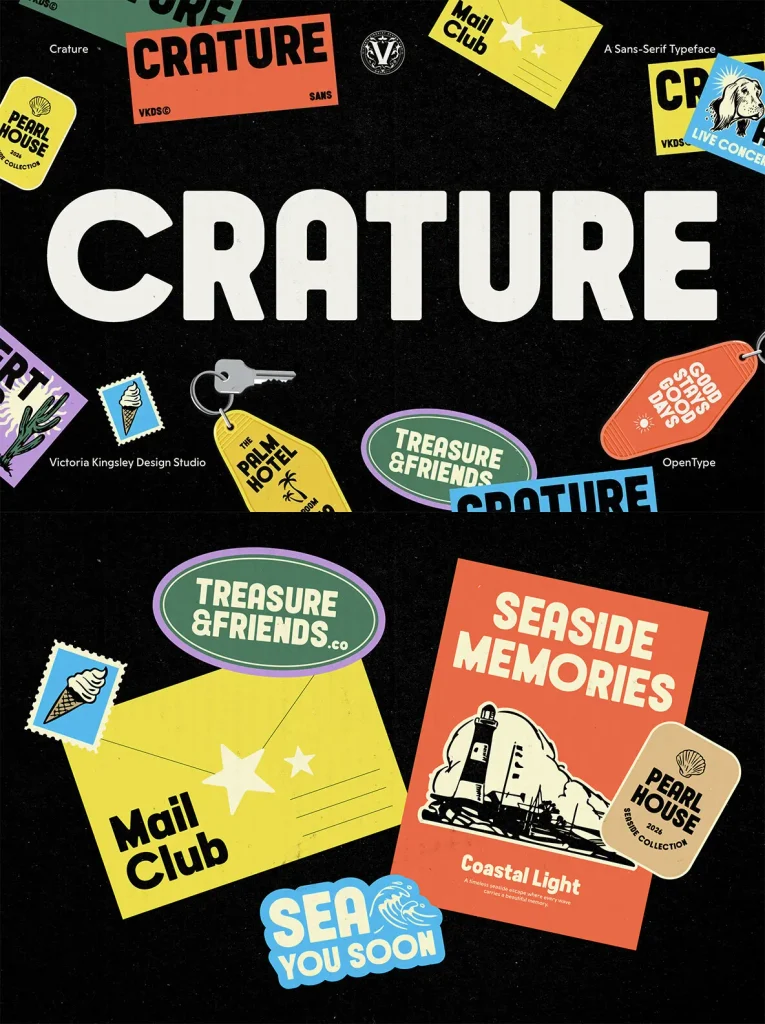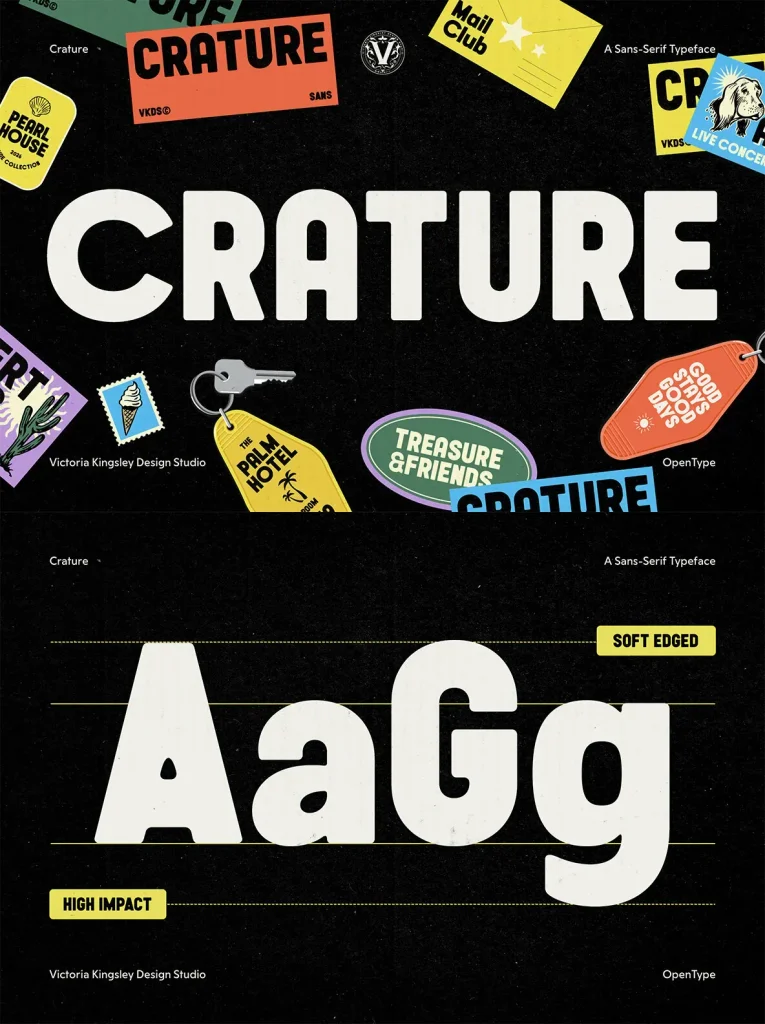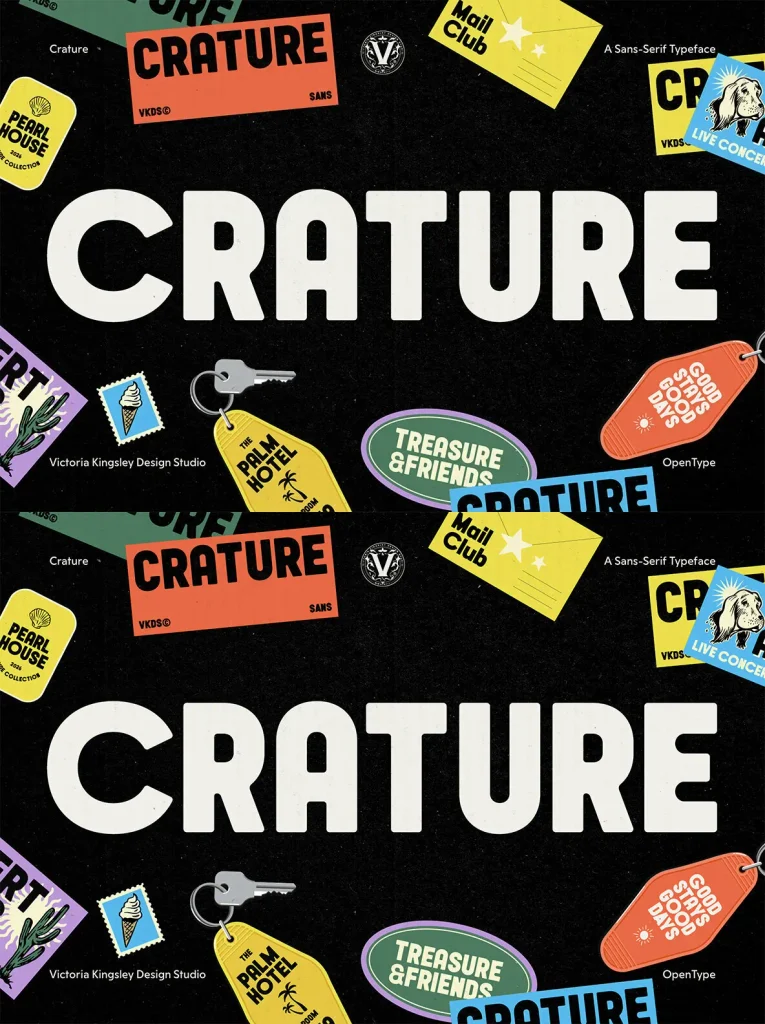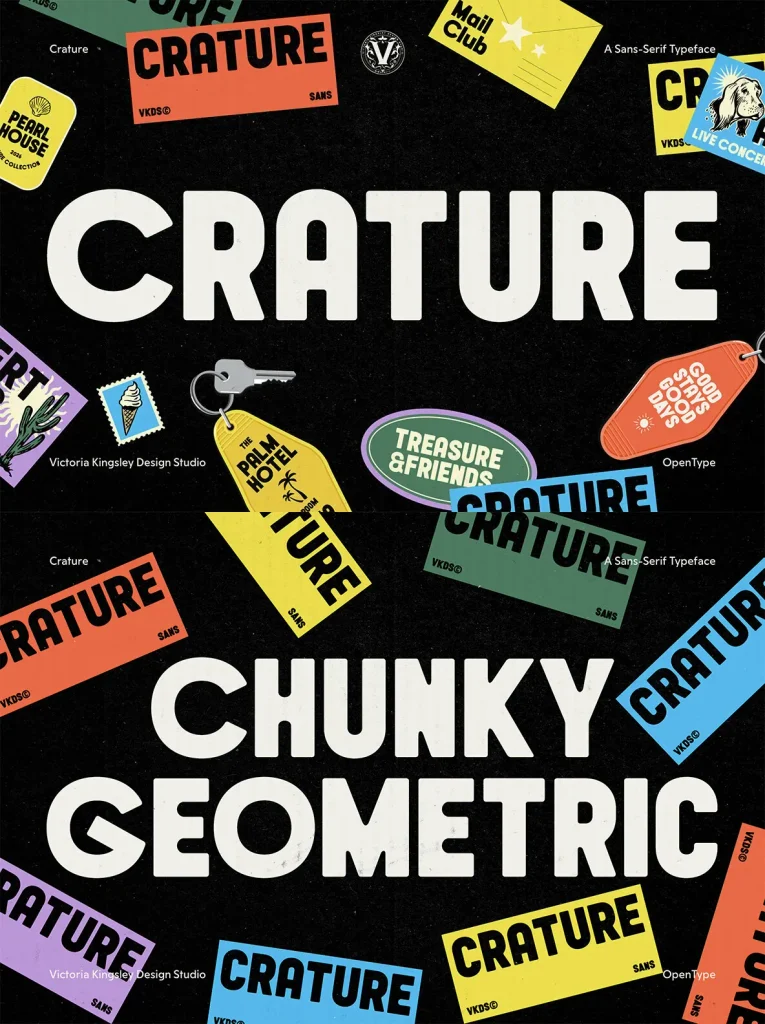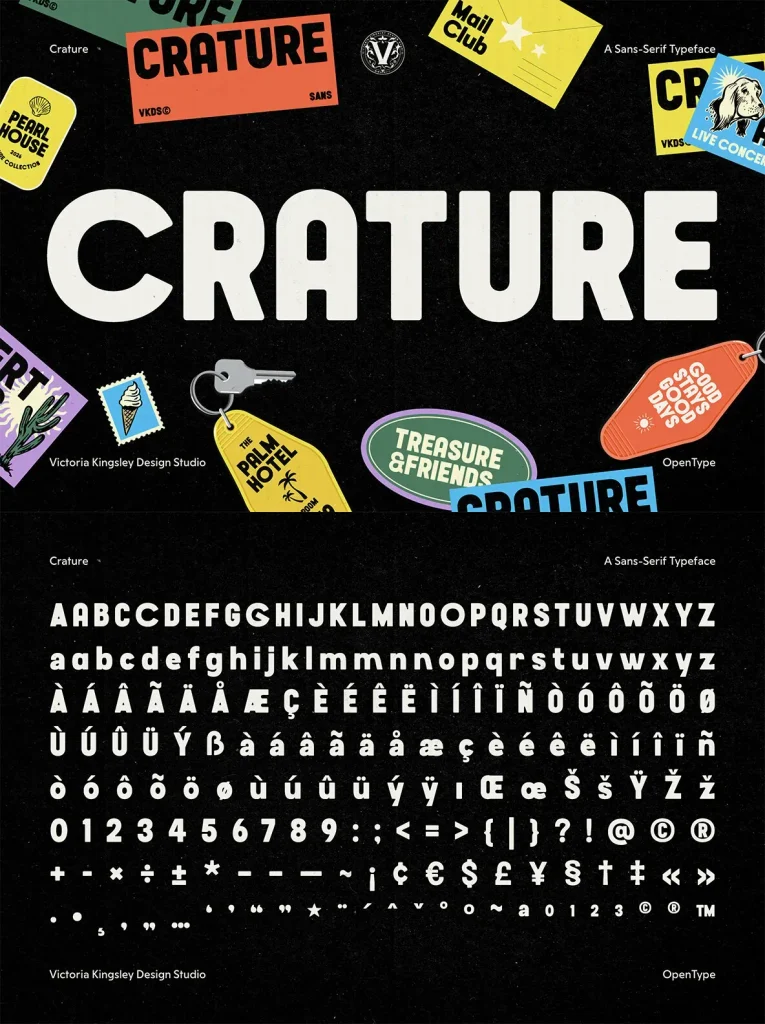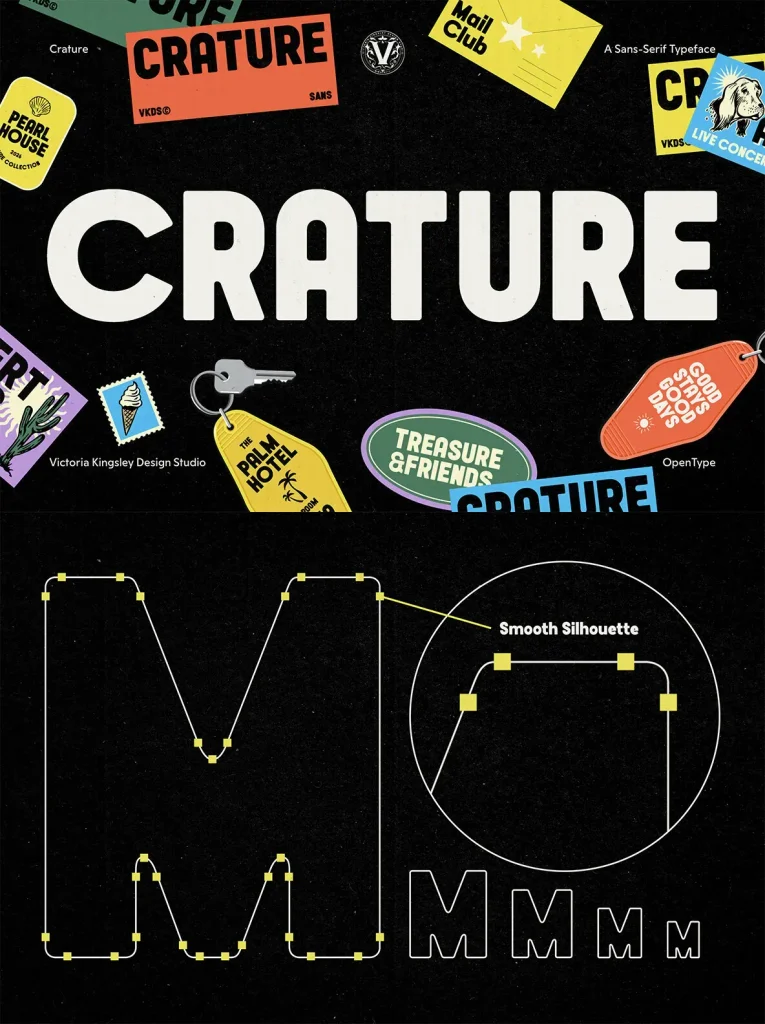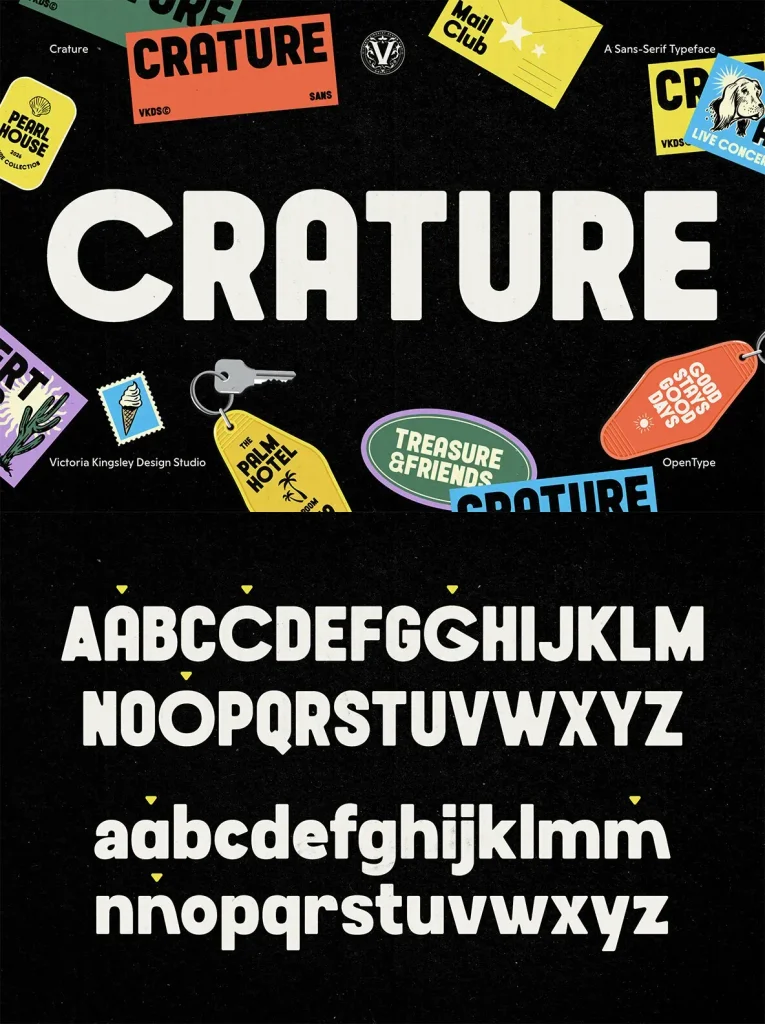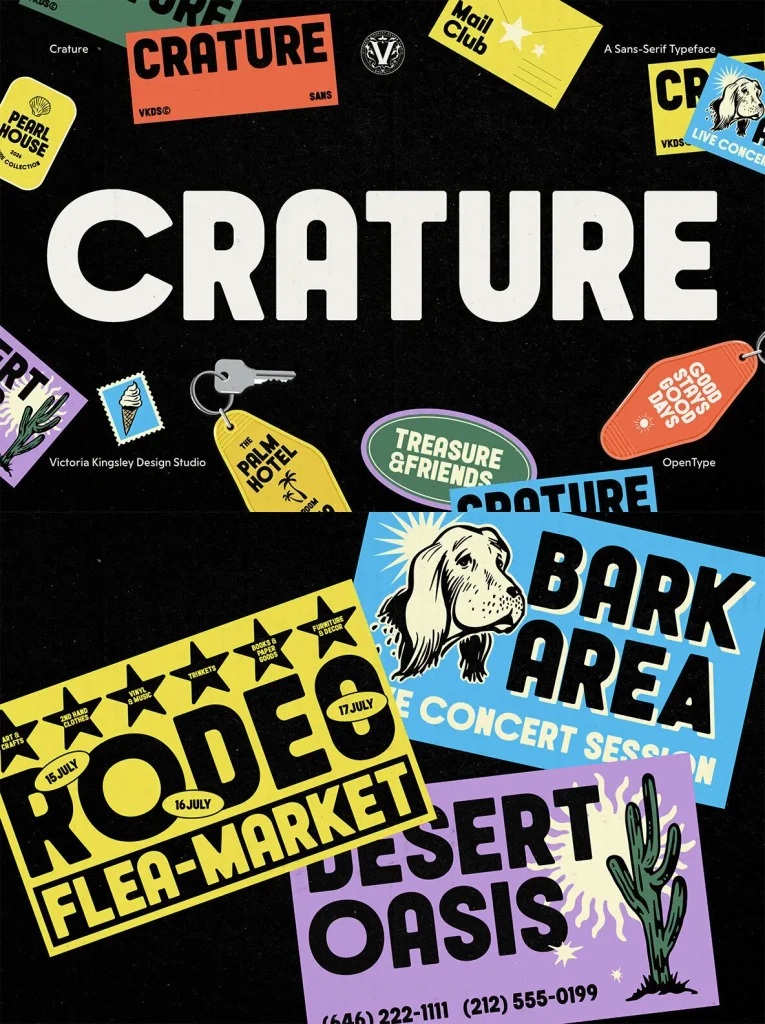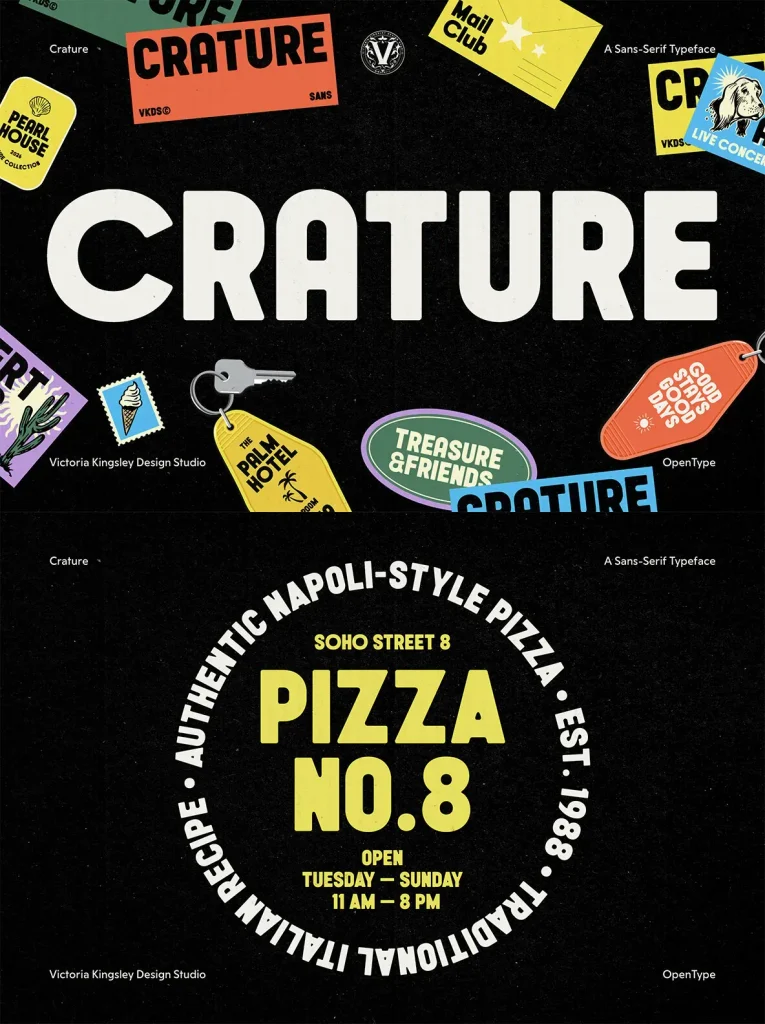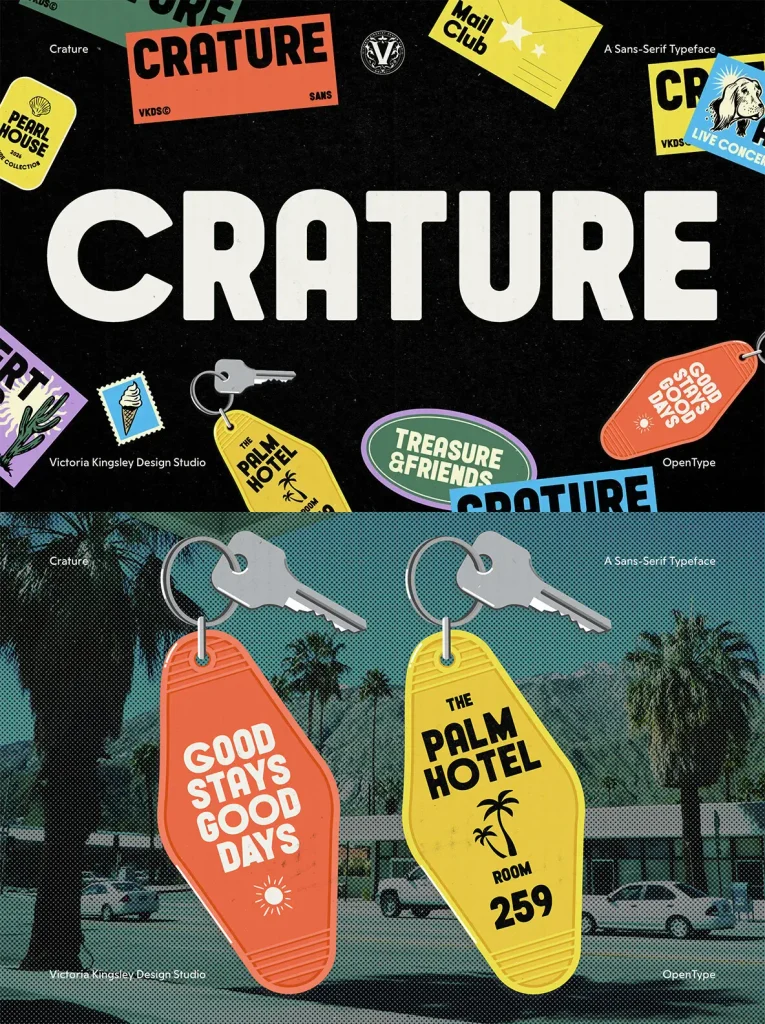
Crature Modern Sans-Serif Font
Crature stands out with its clean, streamlined sans-serif style and a distinctly minimalist approach. Straight lines and balanced proportions give this font a modern, versatile character that adapts seamlessly—whether you’re designing branding, editorial layouts, or digital interfaces. Its contemporary aesthetic and subtle play of geometric forms offer clarity and sophistication to any project.
Key Features
Minimalist sans-serif with straight lines
Stylistic alternates for versatile design
Contemporary feel suitable for digital and print
Great legibility at various scales
Crature’s flexibility makes it an excellent choice for designers who value functionality without sacrificing style. Its thoughtfully designed alternates invite creative experimentation, ideal for headlines, logos, and modern visual identities.